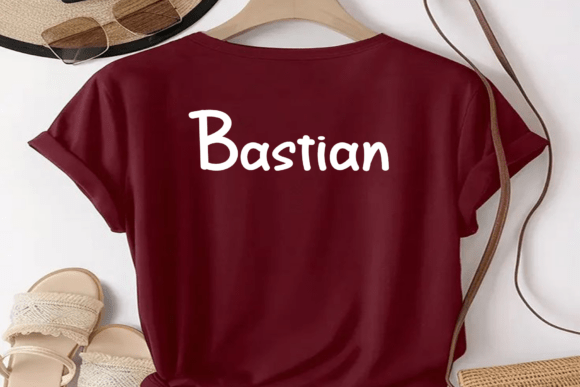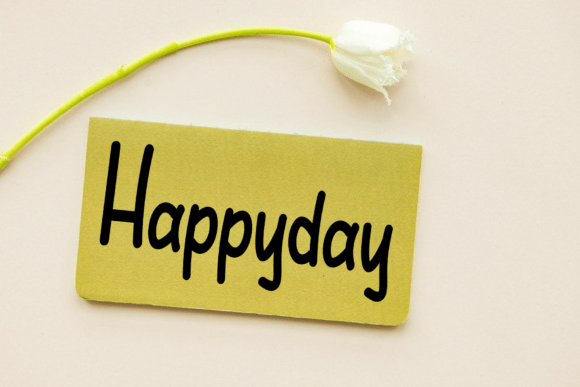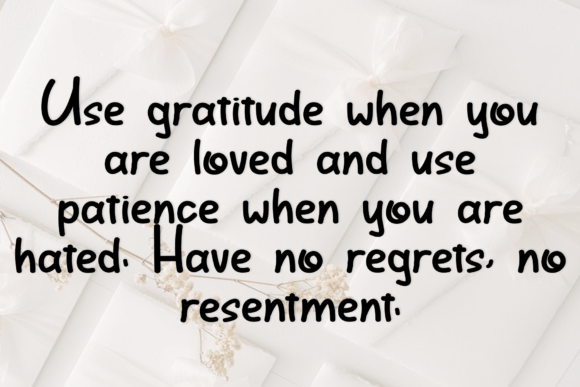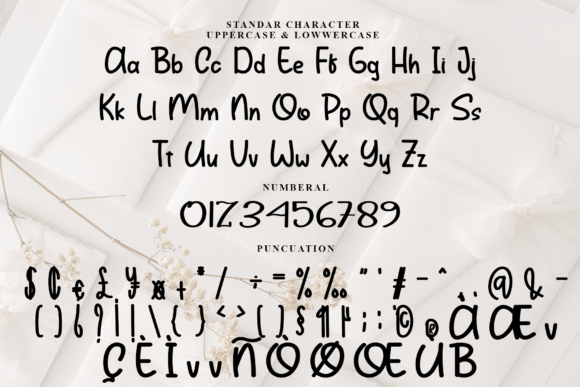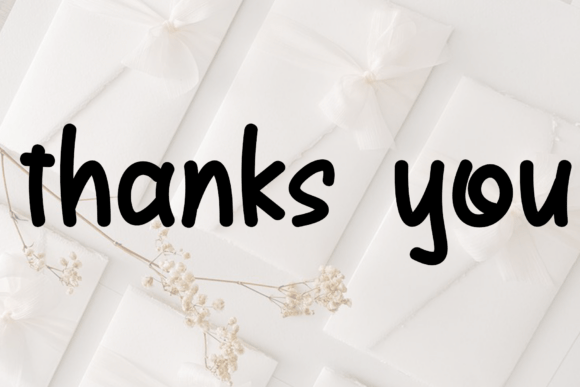
Introducing Envelope Font: A Bold and Sturdy Handwritten Typeface
Are you looking for a font that combines organic charm with a strong typographic presence? Look no further than Envelope Font, a bold and sturdy handwritten typeface that’s perfect for designers and crafters seeking a unique and professional look. In this article, we’ll dive into the features and benefits of Envelope Font, and explore its various applications in design and crafting.
What is Envelope Font?
Envelope Font is a bold and sturdy handwritten font that blends organic charm with a strong typographic presence. Its thick, solid strokes feature a distinct “bouncy” rhythm that gives it a friendly and approachable character. This font is part of the “Unique and Professional” collection, which means it’s designed to help you stand out from the crowd while maintaining a level of sophistication and elegance.
Key Features of Envelope Font
So, what makes Envelope Font so special? Here are some of its key features:
- Bold and sturdy strokes: Envelope Font features thick, solid strokes that give it a strong and confident look.
- Distinct “bouncy” rhythm: The font’s strokes have a unique “bouncy” rhythm that adds a touch of friendliness and approachability.
- Well-balanced proportions: Envelope Font’s proportions are carefully balanced to ensure it remains impactful even in busy designs.
- Organic charm: The font’s handwritten nature gives it a warm, organic feel that’s perfect for designs that need a personal touch.
Applications of Envelope Font
Envelope Font is a versatile typeface that can be used in a variety of design applications. Here are some ideas to get you started:
- Outdoor lifestyle branding: Envelope Font is perfect for outdoor gear and apparel brands that want to convey a sense of adventure and ruggedness.
- Organic product packaging: The font’s organic charm and strong typographic presence make it ideal for packaging design that needs to stand out on store shelves.
- Travel-themed graphics: Envelope Font is a great choice for travel brochures, posters, and other graphics that need to evoke a sense of excitement and adventure.
- Rustic event invitations: The font’s handmade look and feel make it perfect for rustic event invitations, such as weddings, festivals, and outdoor gatherings.
Why Choose Envelope Font?
So, why should you choose Envelope Font for your design project? Here are just a few reasons:
- Unique and professional look: Envelope Font offers a unique and professional look that’s sure to set your design apart from the crowd.
- Versatility: The font’s versatility means it can be used in a wide range of design applications, from branding and packaging to graphics and invitations.
- Easy to read: Despite its bold and sturdy strokes, Envelope Font is easy to read, even in smaller sizes.
- Handmade look and feel: The font’s handmade nature gives it a warm, organic feel that’s perfect for designs that need a personal touch.
Tips for Using Envelope Font
Here are a few tips for getting the most out of Envelope Font:
- Use it as a headline font: Envelope Font is perfect for headlines and titles, where its bold and sturdy strokes can really make an impact.
- Pair it with a sans-serif font: For body text, consider pairing Envelope Font with a clean sans-serif font to create a nice contrast.
- Experiment with colors: Envelope Font looks great in a variety of colors, so don’t be afraid to experiment and find the perfect hue for your design.
- Use it in combination with graphics: The font’s handmade look and feel make it perfect for use in combination with graphics, such as illustrations and icons.
In conclusion, Envelope Font is a bold and sturdy handwritten typeface that’s perfect for designers and crafters seeking a unique and professional look. Its thick, solid strokes and distinct “bouncy” rhythm give it a friendly and approachable character, while its well-balanced proportions ensure it remains impactful even in busy designs. Whether you’re working on outdoor lifestyle branding, organic product packaging, travel-themed graphics, or rustic event invitations, Envelope Font is a great choice. So why not give it a try and see the difference it can make in your design?